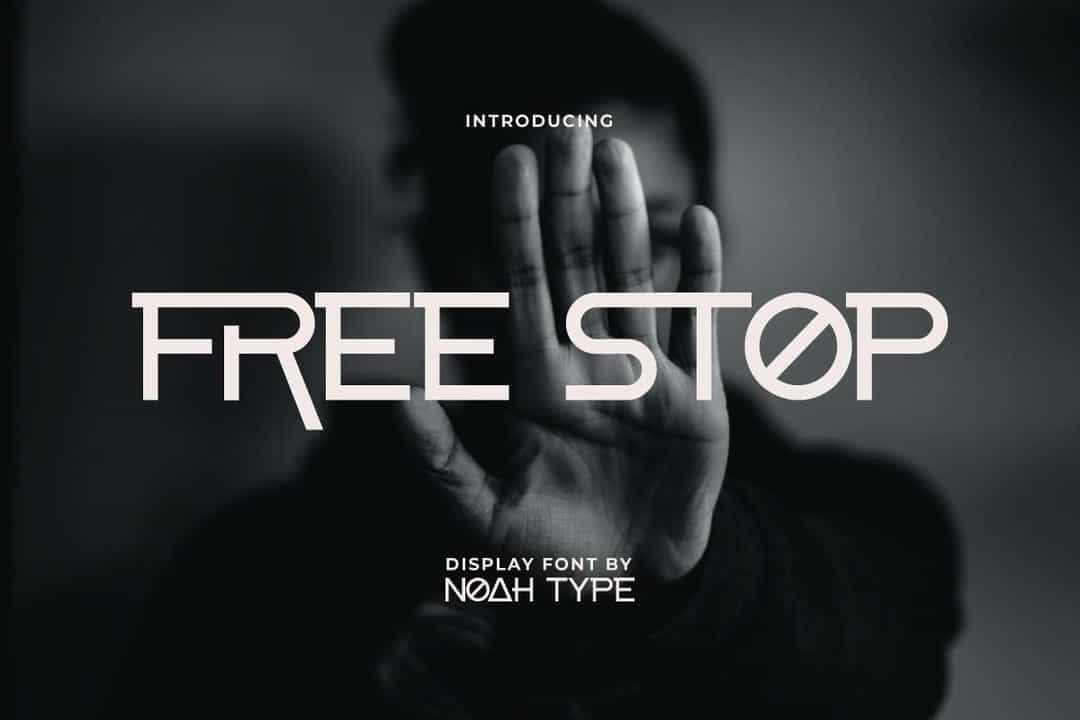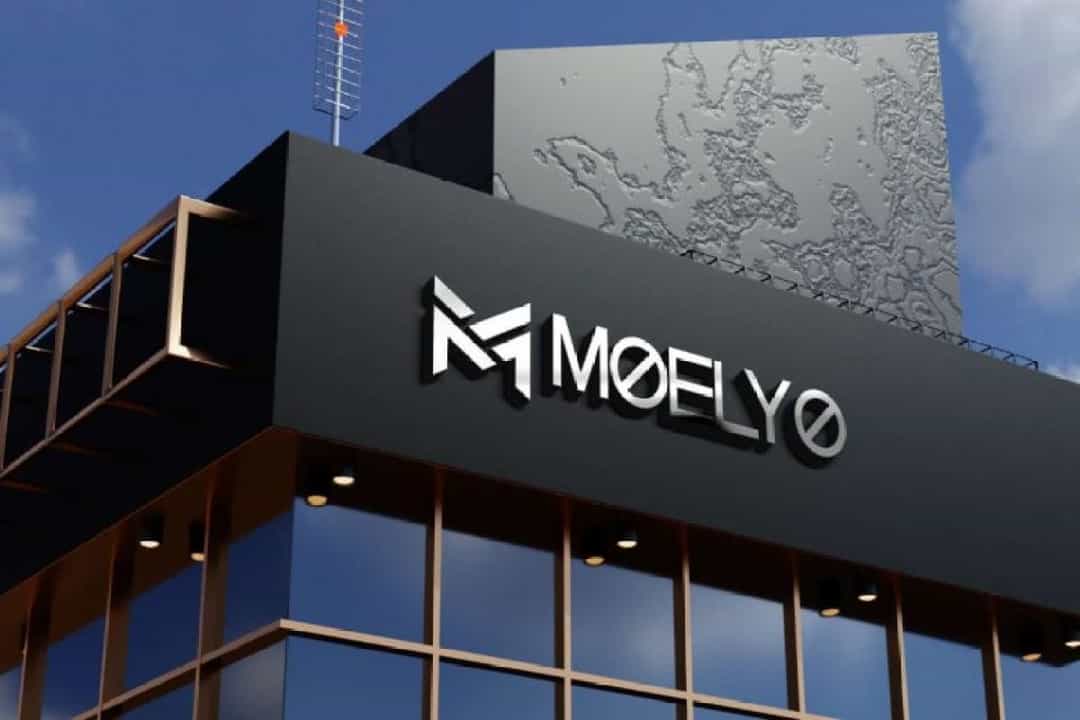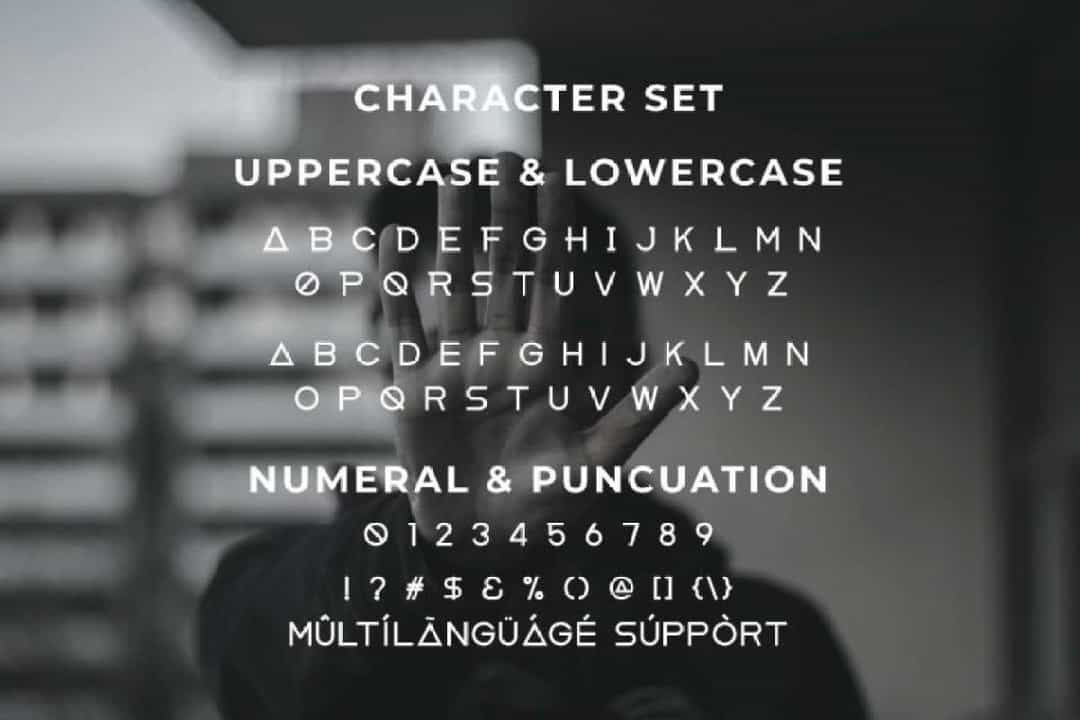
Free Stop is an original Modern sans serif typeface featuring stunning design characters and an incredible aesthetic appeal. Suitable for games, technologies or events such as spaceships and other modern gadgets; its distinct look adds an unforgettable effect.